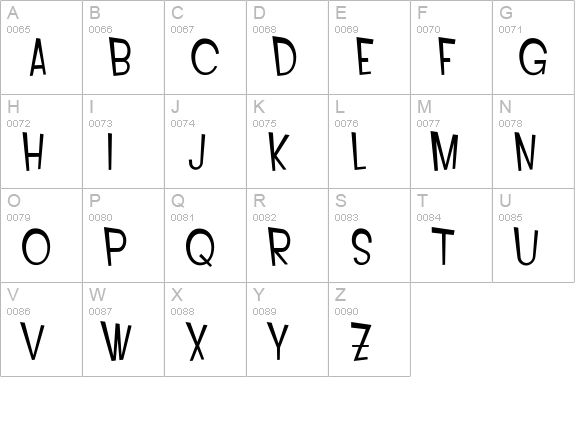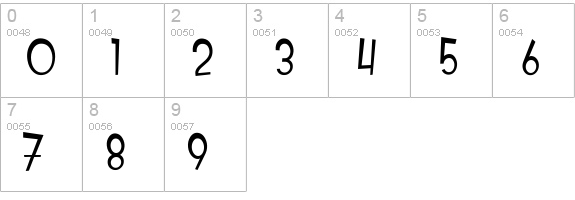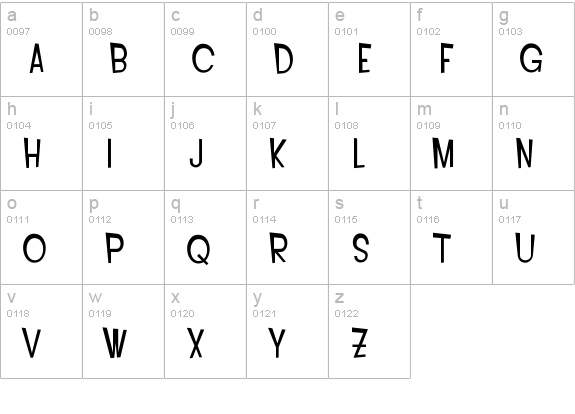
SF Intoxicated Blues Extended is a distinctive, extended-width variant in the SF typeface family \xE2\x80\x94 well suited to design and typography projects.
SF Intoxicated Blues Extended is a mesmerizing and captivating font that effortlessly combines the elegance of blues music with a touch of intoxication. This font exudes a sense of mystery and allure, drawing inspiration from the smokey bars and dimly lit stages where the blues come alive. With its extended and bold letterforms, SF Intoxicated Blues Extended commands attention and demands to be noticed. Each letter is carefully crafted to evoke the soulful melodies and heartfelt lyrics that define the blues genre. The strokes are fluid and dynamic, mirroring the rhythmic movements of a blues musician lost in the moment. This font is the perfect choice for those seeking to add a touch of sophistication and intrigue to their designs. Whether it's for album covers, posters, or branding materials, SF Intoxicated Blues Extended will effortlessly elevate any project to new heights. The best part? SF Intoxicated Blues Extended is available for free download at FontsMarket.com. This means that you can easily access this amazing font and start incorporating its unique charm into your designs without any hassle. So, what are you waiting for? Dive into the intoxicating world of SF Intoxicated Blues Extended and let its mesmerizing letterforms transport you to a place where the blues reign supreme. Download it now and let your creativity soar.